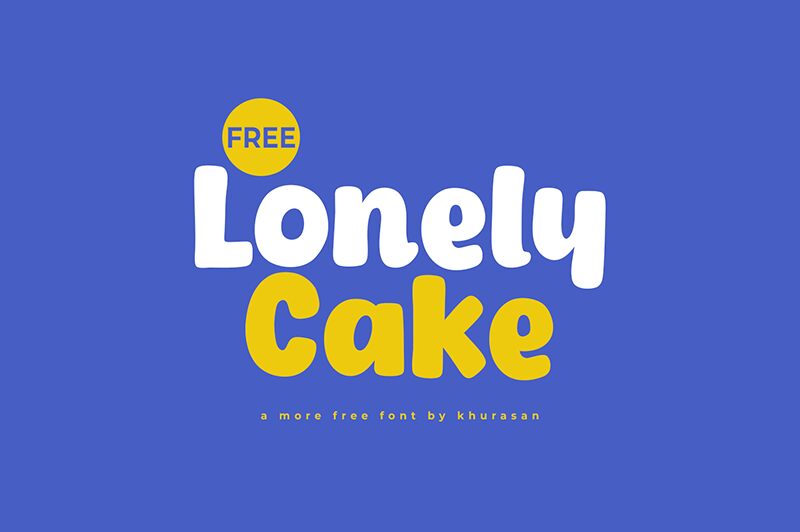
Lonely Cake
Lonely Cake font by Khurasan exudes a playful charm that makes it a standout choice for creative projects. As a bold display font with a cartoon style, its whimsical curves and robust design add a touch of joy and imagination to any work. Perfect for headlines, children’s books, posters, or branding projects that require an eye-catching appeal, Lonely Cake lends itself to settings where fun and attention are paramount.
With unique characteristics evoking friendliness and approachability, this free font is ideal for designers seeking to download something special to enhance their toolkit. Its distinctiveness ensures your text won’t go unnoticed, making Lonely Cake an excellent choice for anyone looking to inject personality into their designs.